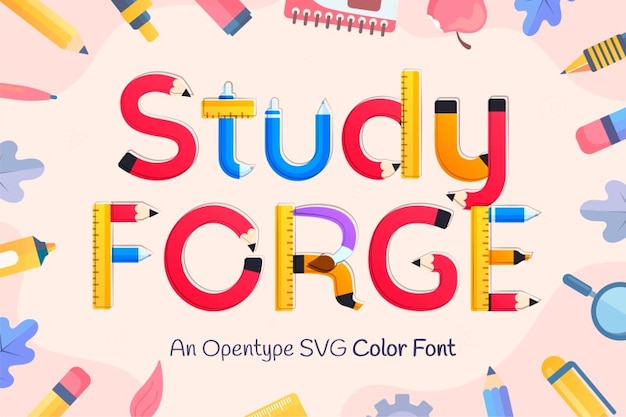
Study Forge Font
"Study Forge" is a clean, scholarly font designed to evoke the classic tools of learning. Each letter mimics a pencil, embodying the essence of focused study and education. Ideal for school-related projects, this font combines a professional look with a touch of craftsmanship, making it perfect for materials that emphasize dedication and intellectual growth.